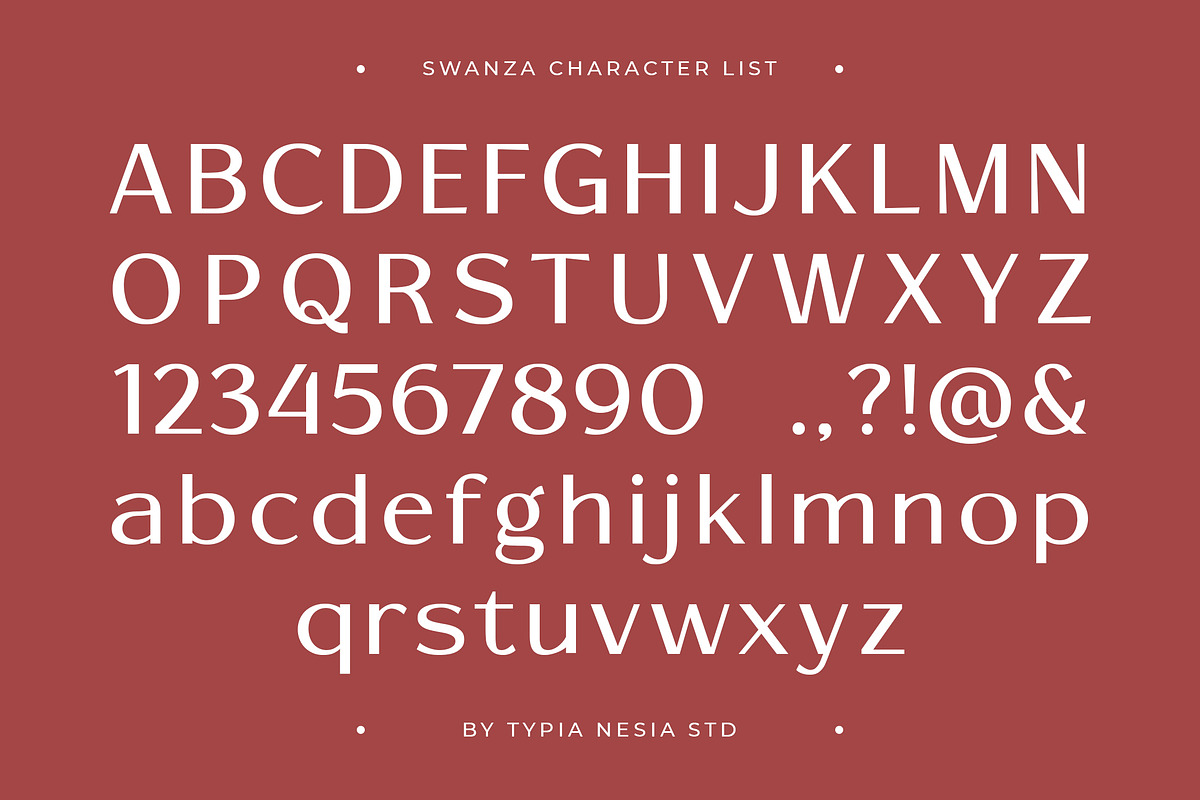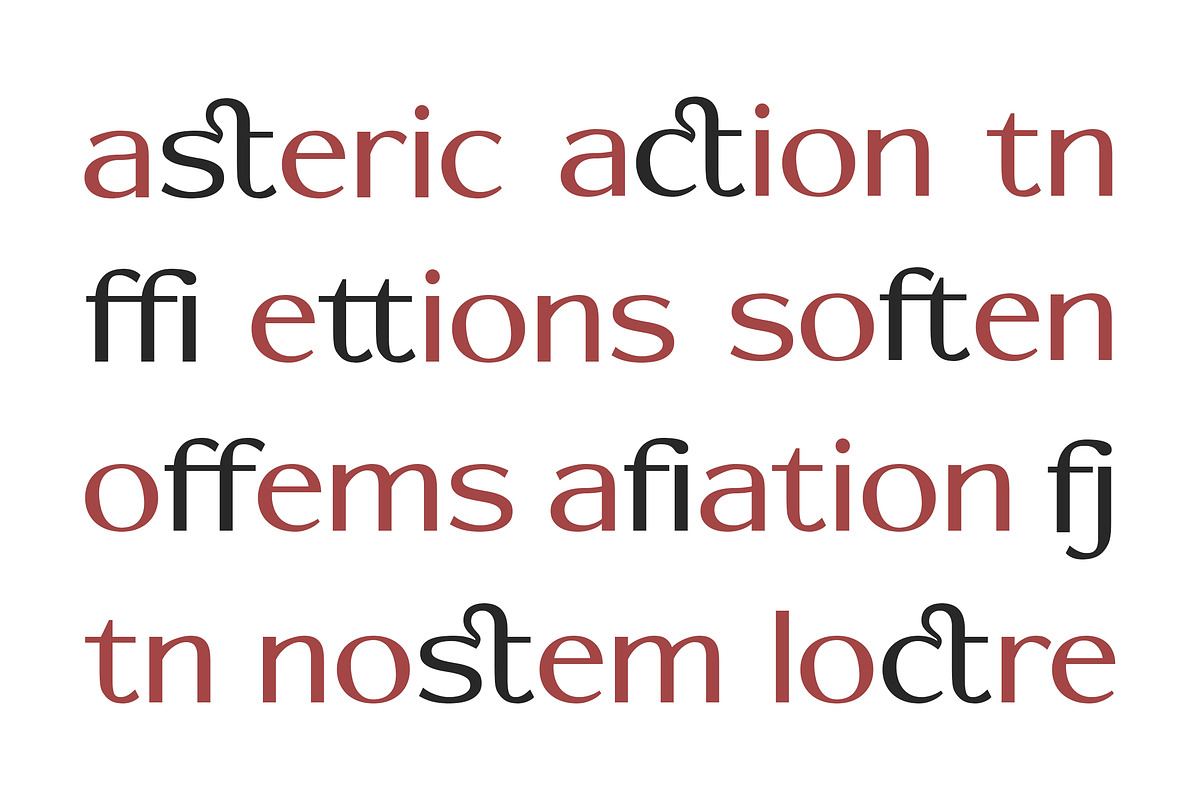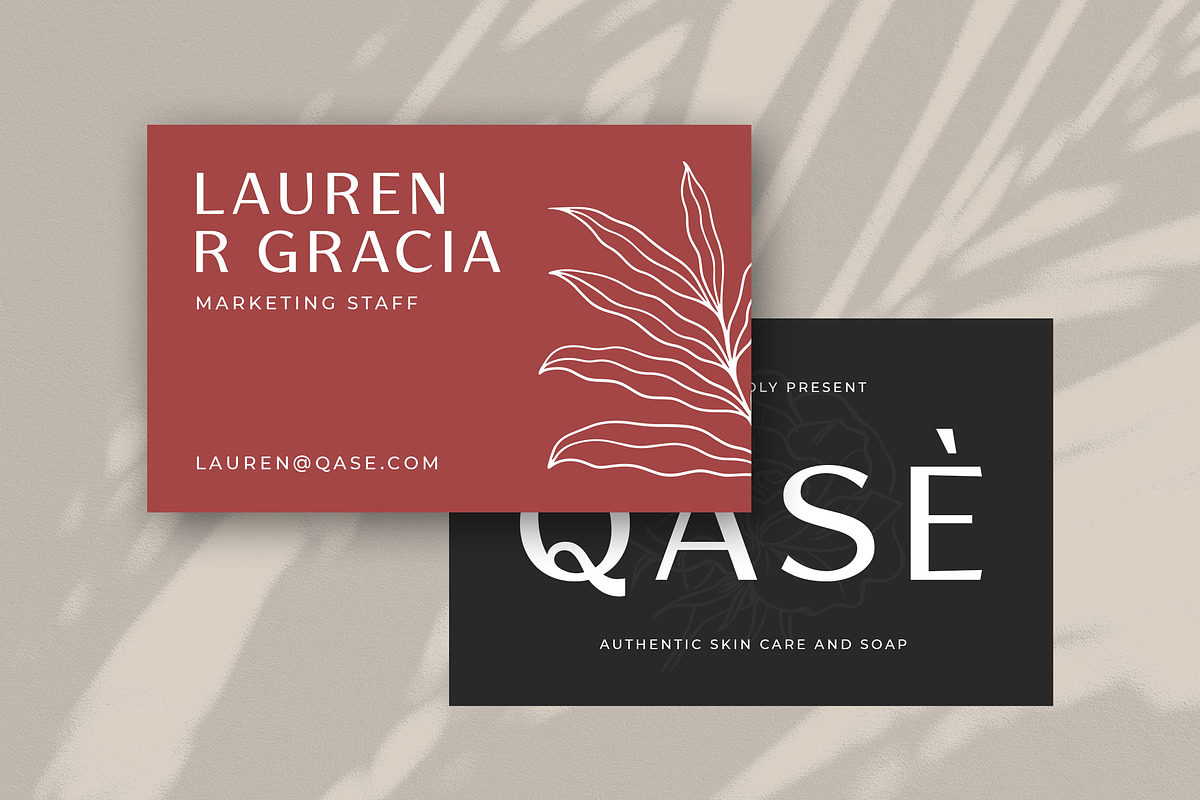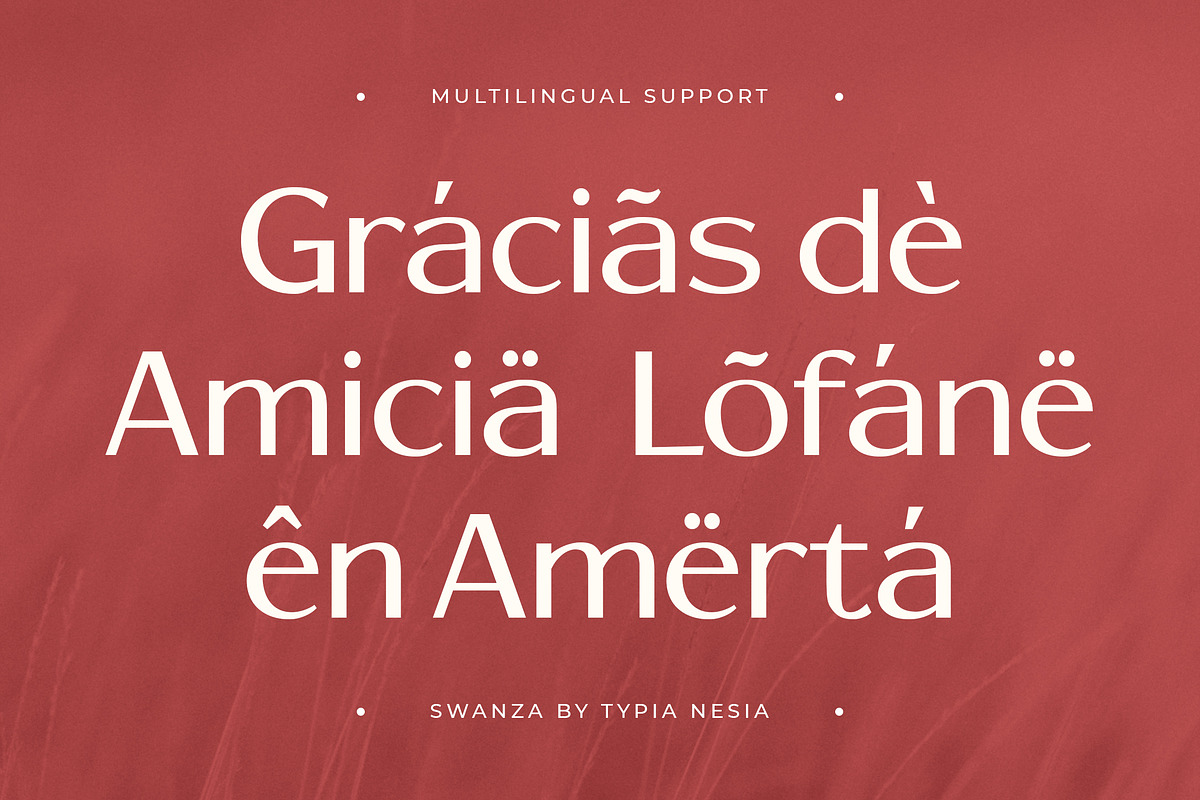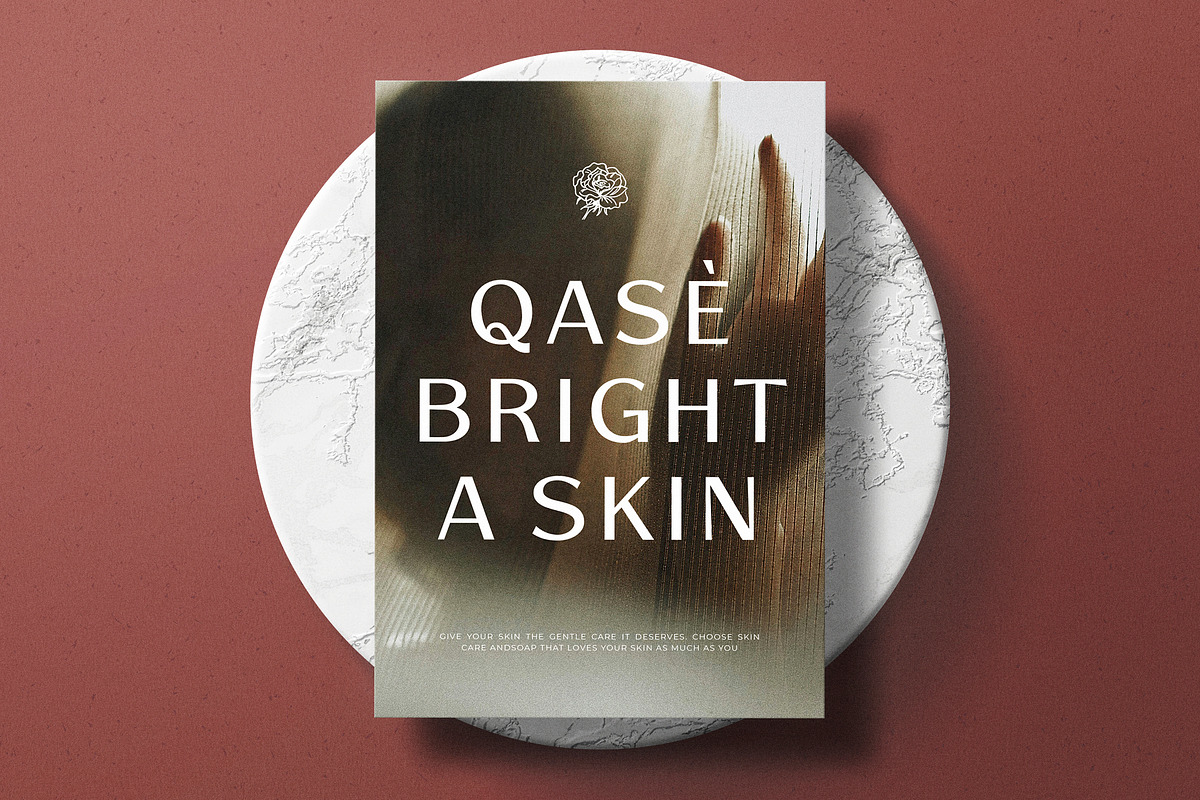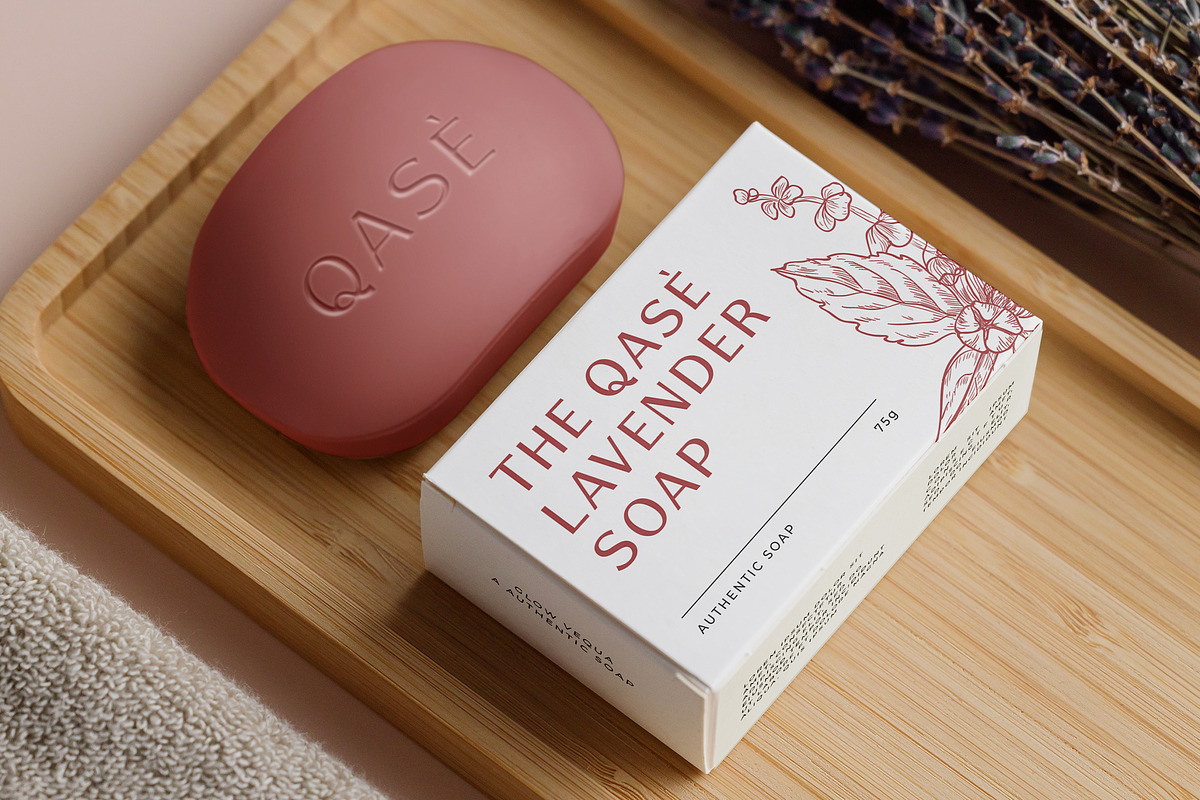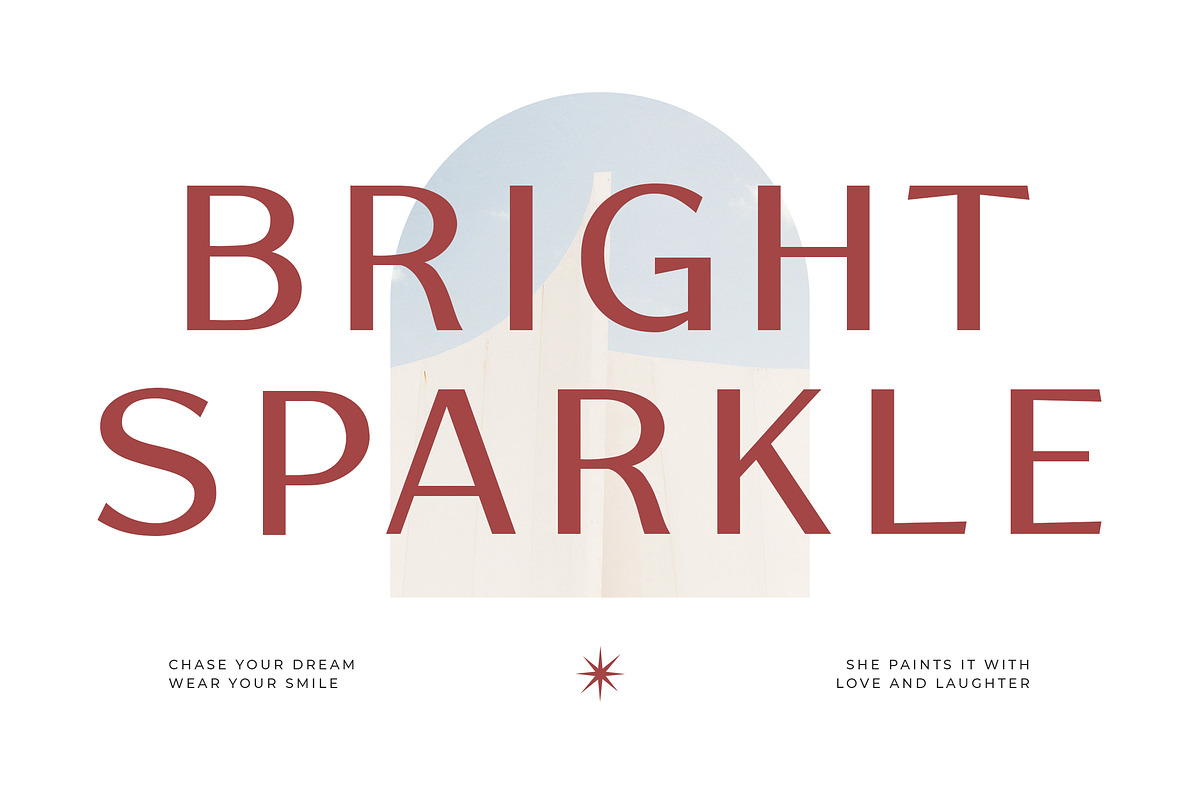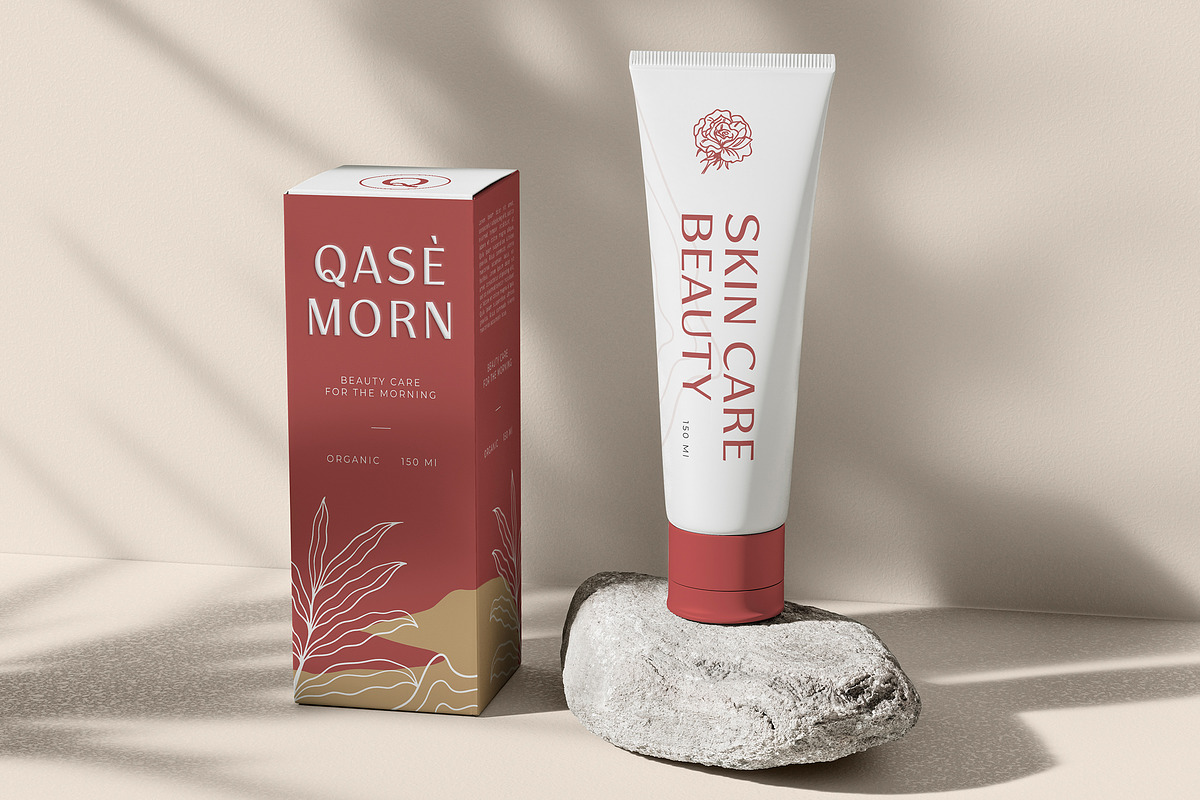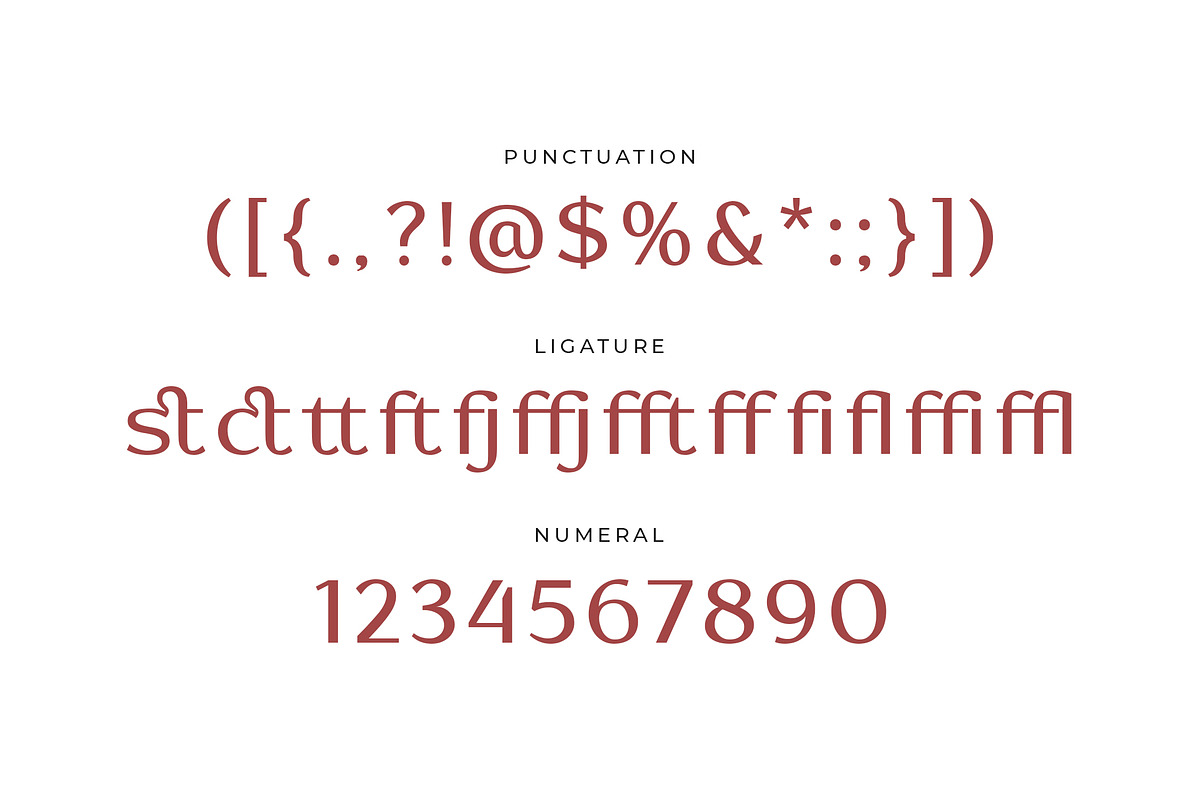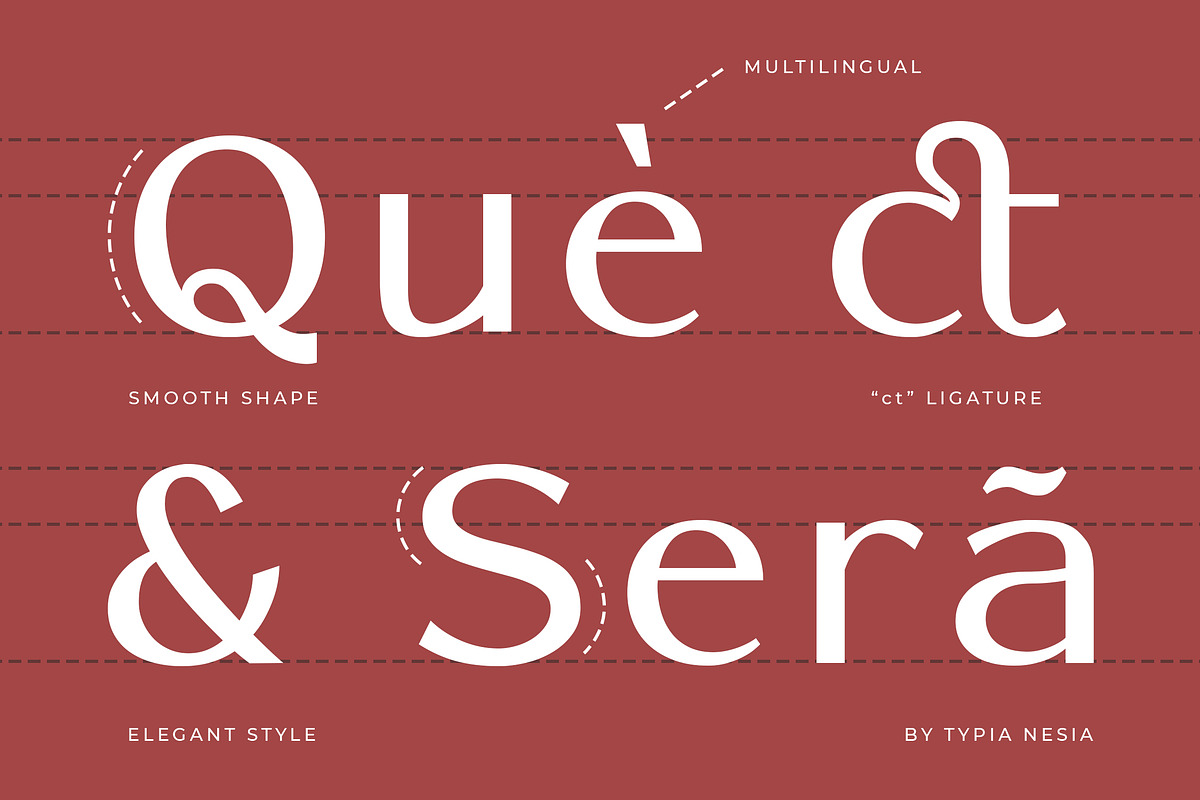
Swanza - Luxury Elegant Sans Serif
Swanza - Luxury Elegant Sans Serif - Modern Beauty Minimalist Clean Stylish Font
Swanza is a Modern Minimalist Elegant Sans Serif font designed to express luxury, beauty, and clean. With its balanced proportions, smooth curves, and refined letterforms, Swanza delivers a timeless and stylish appearance that feels both modern and chic, making it an excellent choice for fashion brands, magazines, cosmetic and skincare packaging, luxury logos, posters, branding materials, and any project that requires a touch of modern minimalism and luxurious beauty. Swanza blends modern simplicity with luxurious elegance, allowing designers to create visually striking yet polished designs.